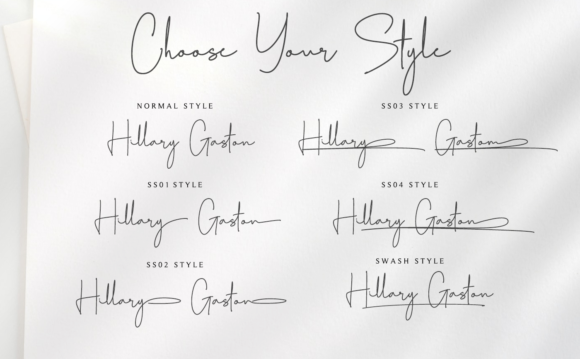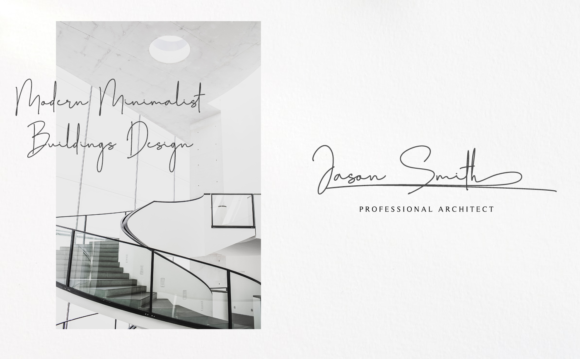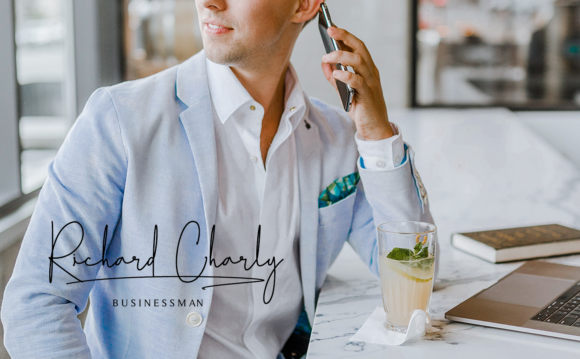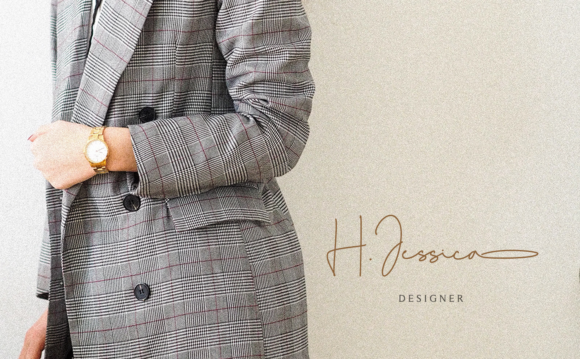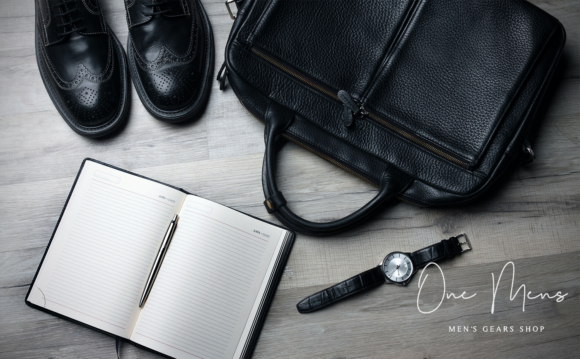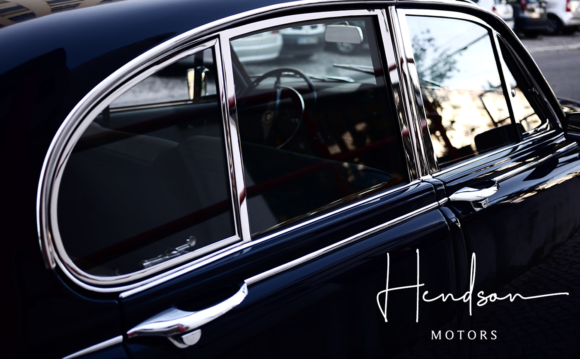
Introduction to Legally Style Font
Remember the moment when you finally nailed that perfect design concept for your client, and it all came together with a single, elegant font? That’s the magic of great typography. For designers, finding the right font can make all the difference between a mediocre design and a masterpiece. One such font that has been making waves in the design community is the Legally Style Font – a stunning, delicate handwritten font that exudes a clean, thin, and smooth vibe.
With its high-quality design and versatility, the Legally Style Font has become a go-to resource for designers looking to add a touch of sophistication to their creative projects. Whether it’s for branding, product packaging, invitations, or quotes, this font is sure to elevate your design to the next level. And the best part? It’s available for free download, complete with a transparent background, making it a valuable addition to any designer’s toolkit.
Key Features of Legally Style Font
- High-quality design resource ideal for creative projects requiring a professional touch.
- Unique, stylish design that sets it apart from other fonts, perfect for making a lasting impression.
Honest Review: Legally Style Font
I recently had the chance to work with the Legally Style Font, and I have to say, it’s a solid addition to any designer’s toolkit. As a design resource, it offers a clean and professional aesthetic that’s perfect for creative projects that require a touch of sophistication.
- ✨ High-quality font glyphs that render beautifully on both light and dark backgrounds.
- ✨ A transparent background option that makes it easy to layer over other design elements.
- ✨ A wide range of characters and symbols that make it suitable for a variety of applications.
- ⚠️ The font is not ideal for use in extremely small sizes, as the glyphs can become difficult to read.
- ⚠️ Some users have reported issues with compatibility on certain operating systems.
Overall, I’m impressed with the Legally Style Font. It’s a great choice for designers who need a high-quality font for their creative projects. And, the best part? It’s available as a free download, making it an accessible resource for designers of all levels.
How to Use Legally Style Font
The Legally Style Font is a high-quality design resource ideal for creative projects that require a professional and sophisticated look. With its transparent background, this font can be easily integrated into various design platforms.
Use the Legally Style Font in conjunction with other design elements to create a cohesive and professional look. Experiment with different font sizes, colors, and alignments to add visual interest to your design.
The Legally Style Font is commonly used in business proposals, contracts, and other legal documents. It’s also suitable for creative projects such as brochures, flyers, and posters.